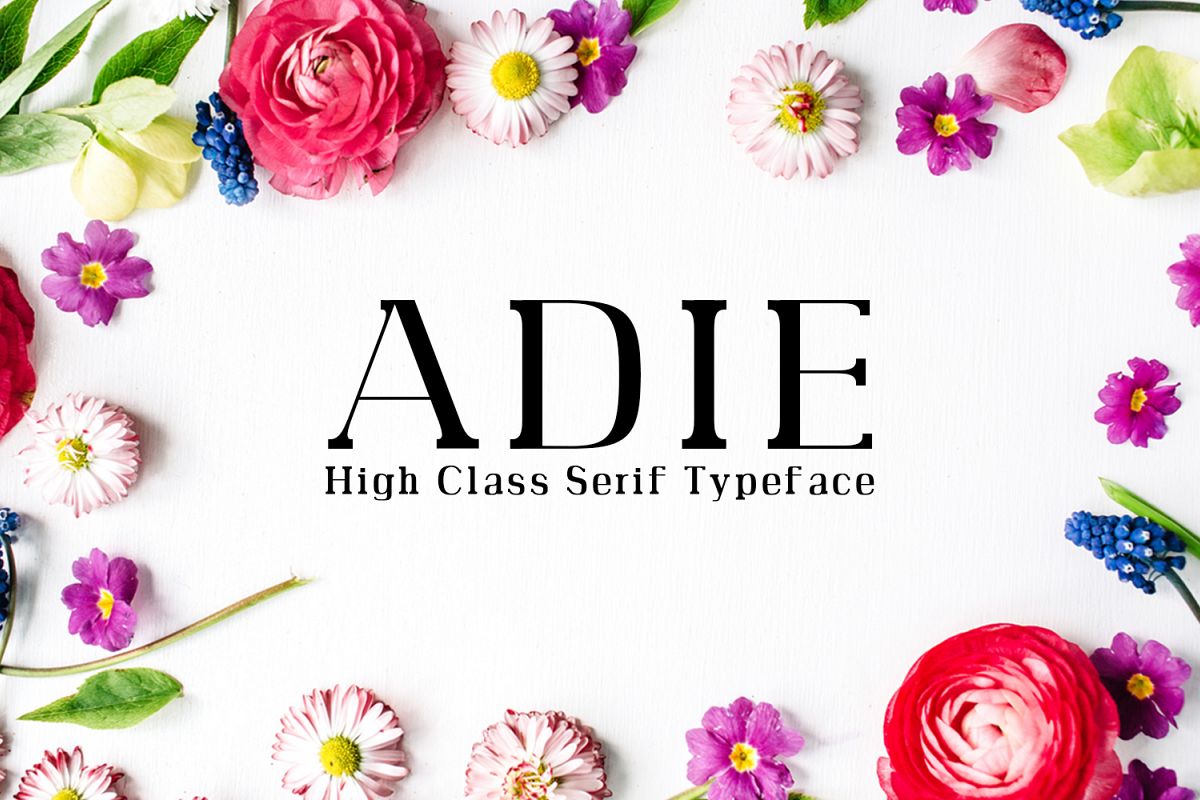
Adie High Class Serif Typeface
Adie-Bold
Adie-Thin
Adie-Regular
Adie-Ligh
Adie High Class Serif Typeface is a decorative serif font family, which contains 4 weights and It features unique and modern serif look and feel. Perfect for gorgeous logos, titles, web layouts and branding. It looks gorgeous in all caps with a wide-set spacing if you want to try a classy look, or beautiful on its own in capital and lowercase letters for something completely timeless.Included Features:
• Font Weight: Regular, Thin, Light and Bold
Adie Font Features:
• Uppercase Multilingual Letters
• Lowercase Multilingual Letters
• Alternative